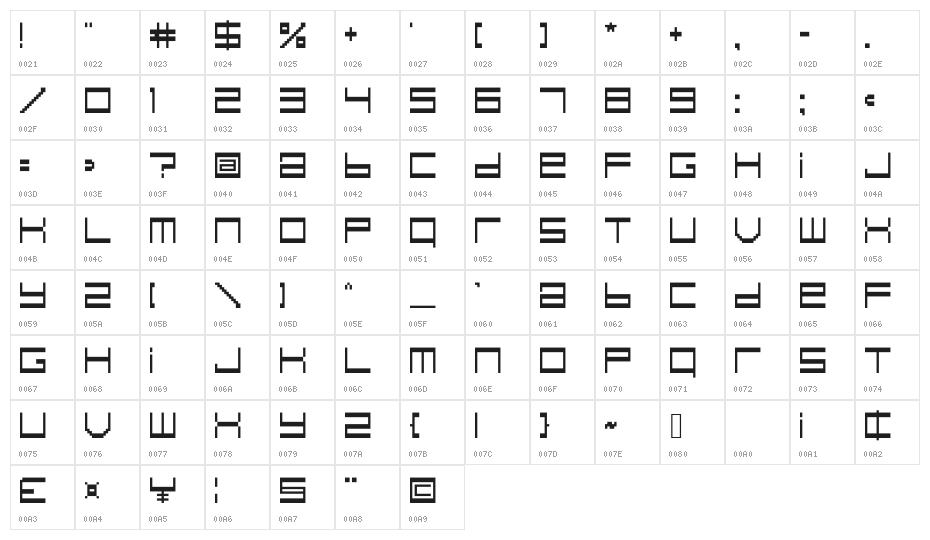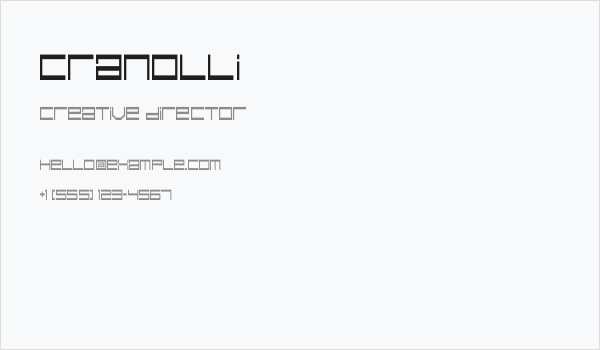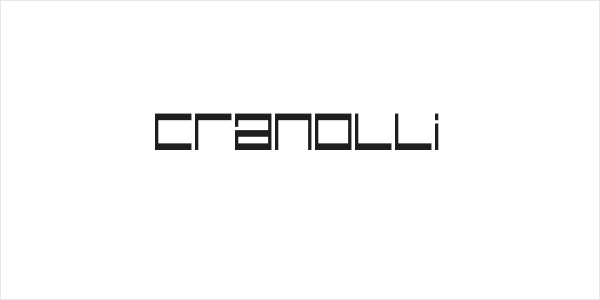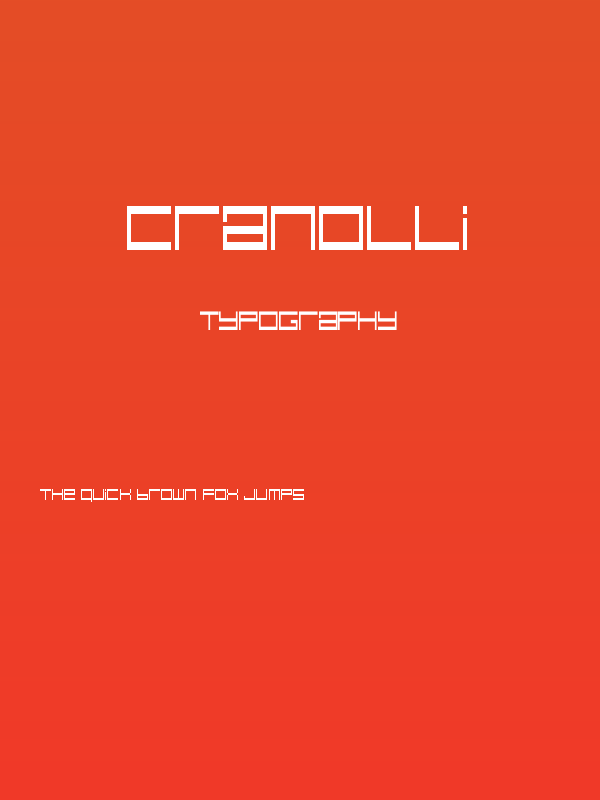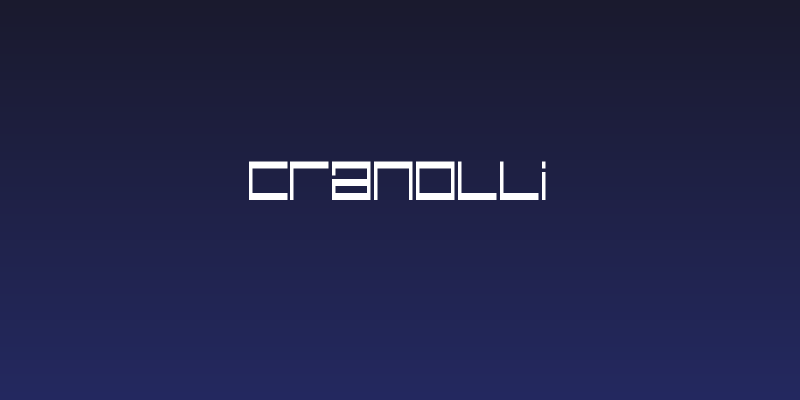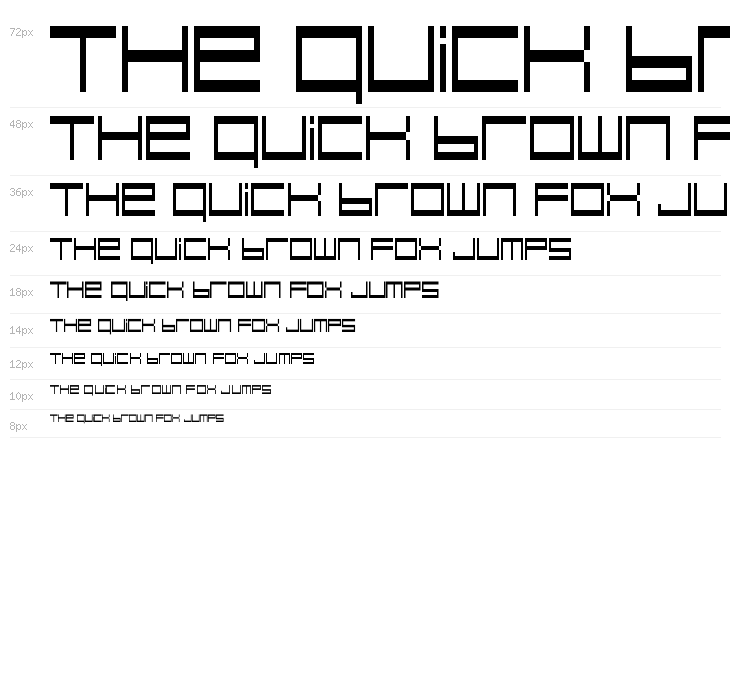
Cranolli Font
Cranolli Description
This font features a pixelated, blocky design reminiscent of early digital displays or retro video games. Each character is constructed with a grid-like precision, emphasizing straight lines and right angles. The uppercase and lowercase letters maintain a consistent height, contributing to a uniform appearance. The numerals and special characters follow the same geometric style, ensuring cohesion across all elements. This font's distinct digital aesthetic makes it ideal for projects seeking a nostalgic or tech-inspired look.
| Overall Style | Retro, Digital |
| Proposed Projects | Ideal for video game design, tech-themed posters, digital art projects, and retro-style branding. |